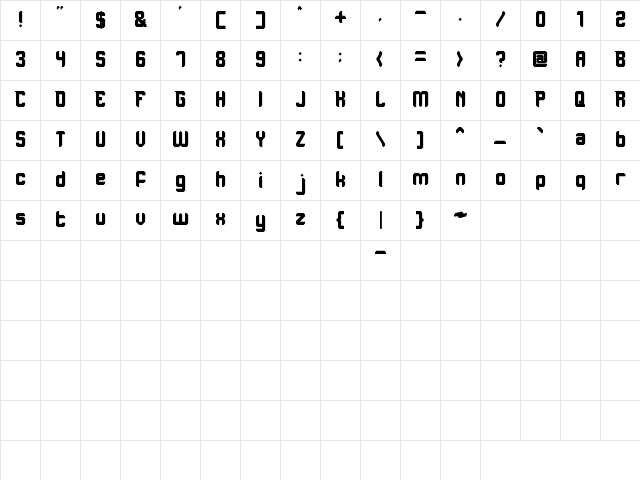
PURPOSE-advance Regular Free Font
PURPOSE-advance Regular
Complete PURPOSE-advance Regular glyph index. Displaying only characters natively supported by PURPOSE-advance Regular font.
Design Context for PURPOSE-advance
PURPOSE-advance is a composed and adaptable typeface that performs quietly and consistently across a wide range of design contexts.